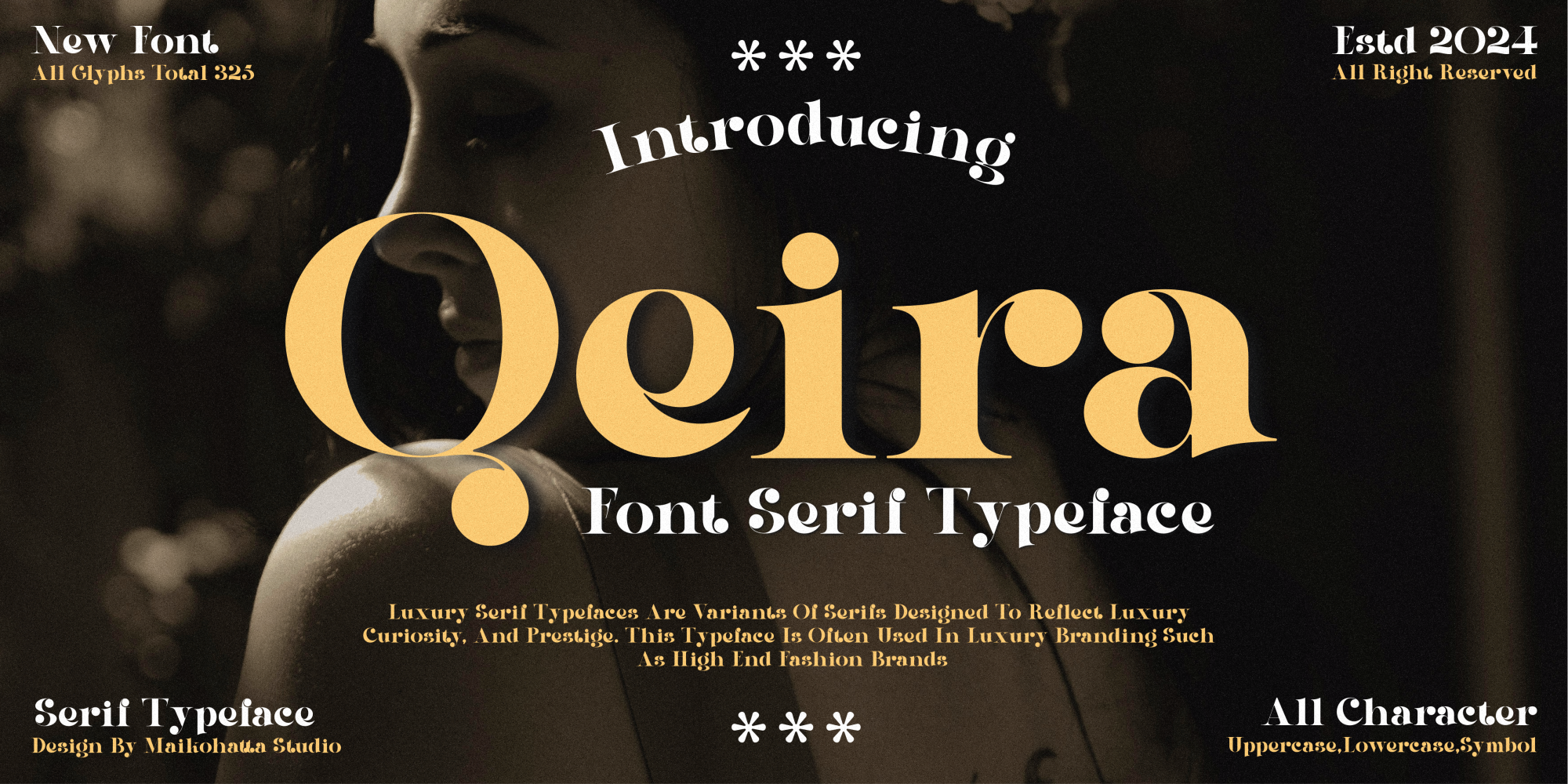
This elegant font is perfect for luxury fashion brands, high-end cosmetics packaging, sophisticated wedding stationery, premium jewelry marketing, upscale boutique signage, refined editorial design, exclusive event invitations, and distinguished corporate communications. Its graceful character makes it ideal for projects requiring contemporary sophistication and timeless elegance.
Qeira Font is exciting because it embodies modern luxury with letterforms that achieve perfect balance between geometric precision and organic warmth. The font features refined curves, elegant proportions, and subtle character details that create an atmosphere of understated luxury and contemporary refinement. Its sophisticated design approach appeals to discerning audiences while maintaining exceptional functionality across all media applications.
The Qeira Font family typically includes multiple weights from light to bold, along with italic variations and extended character sets. Many versions feature stylistic alternates, elegant ligatures, and premium OpenType features that enhance its versatility for luxury brand applications and international markets.
Whether you're developing premium brand identities, luxury marketing campaigns, or sophisticated design projects, Qeira Font Free Download provides contemporary elegance with professional reliability. This typeface transforms standard communications into distinguished statements that resonate with affluent audiences who appreciate quality, refinement, and modern luxury aesthetics. Its versatile character ensures consistent brand recognition while maintaining exceptional legibility across all platforms, making it an essential resource for professionals who understand that Qeira Font Free Download represents the perfect fusion of contemporary design trends with timeless luxury appeal in today's competitive premium marketplace.